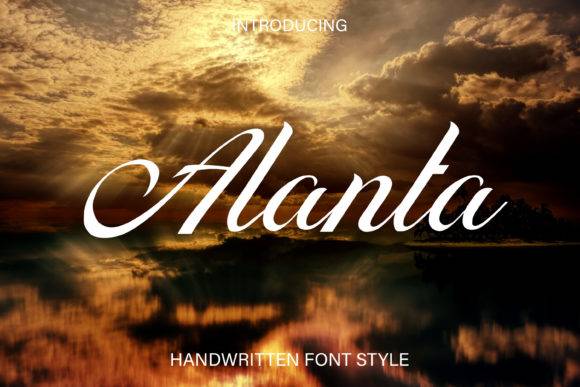
Alanta Font
Alanta is an elegant and stylish handwritten font with a cursive and easy-to-read style. Add it confidently to your projects, and you will love the results.